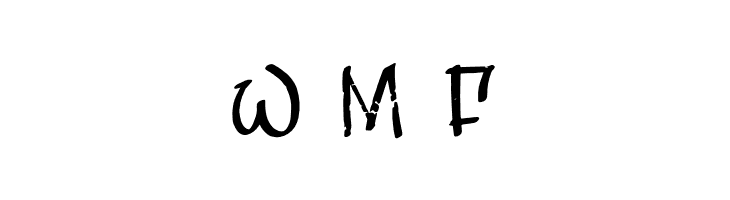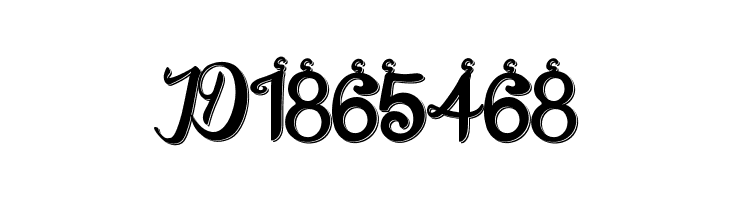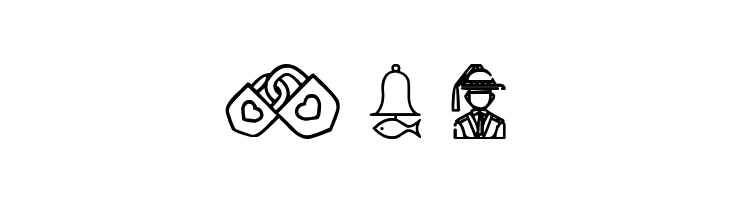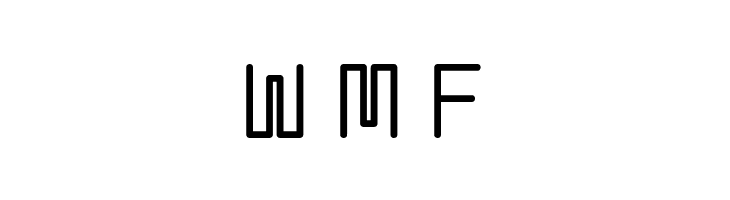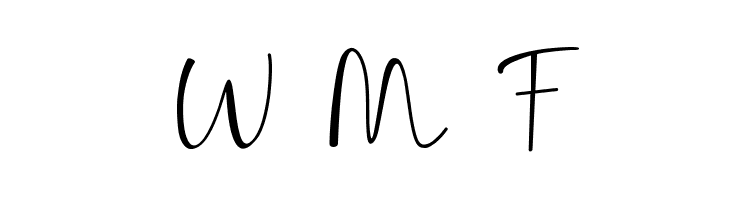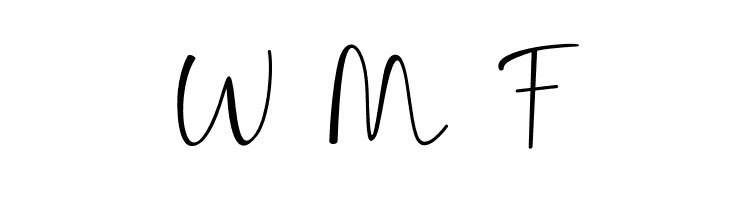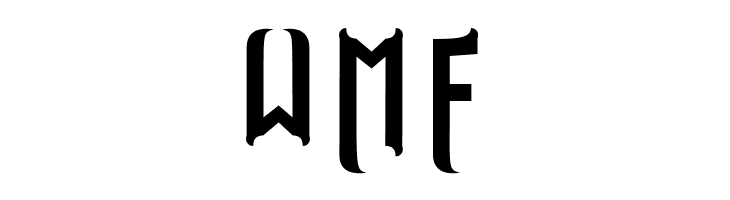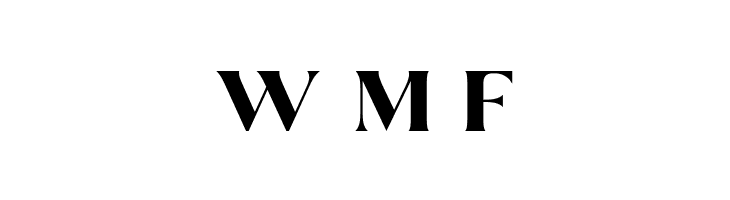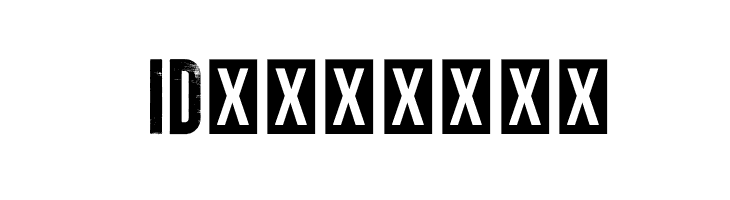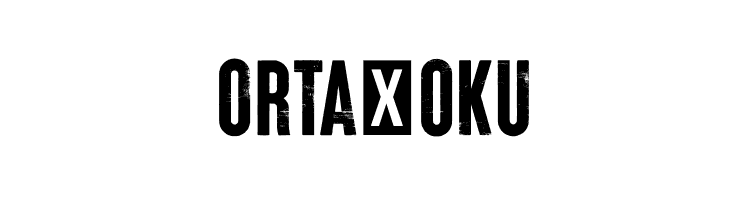
A bold, distressed font with a rugged, grunge texture.
Playful handwritten font with rounded edges.
A bold, high-contrast serif font with sharp serifs and a dramatic style.
A casual, handwritten font with a playful and informal style.
A modern, geometric font with a narrow, stylish design.
A playful, bold font with rounded, thick strokes and a whimsical touch.
A bold, narrow font with elegant curves and strong presence.
A bold, classic serif font with strong, well-defined characters.
A classic serif font with elegant, thin strokes and refined appearance.
A classic serif font with elegant strokes and balanced proportions.
A bold, playful, hand-drawn font with a whimsical style.
A bold, decorative font with vintage, ornate serifs.
A playful, casual handwritten font with a lively and informal style.
Korean cultural icon set in bold line-art style.
A geometric, modern font with Korean script-inspired elements.
A bold, distressed font with a rugged, grunge aesthetic.
A bold, Gothic-style font with intricate, angular characters and a medieval flair.
A bold, traditional blackletter font with high contrast and intricate details.
A playful, elegant script font with a handwritten touch.
A playful and elegant handwritten script font with fluid strokes.
Elegant and modern handwritten script.
A bold, geometric font with strong, uniform strokes and a modern appeal.
A bold, geometric font with consistent stroke width and a strong presence.